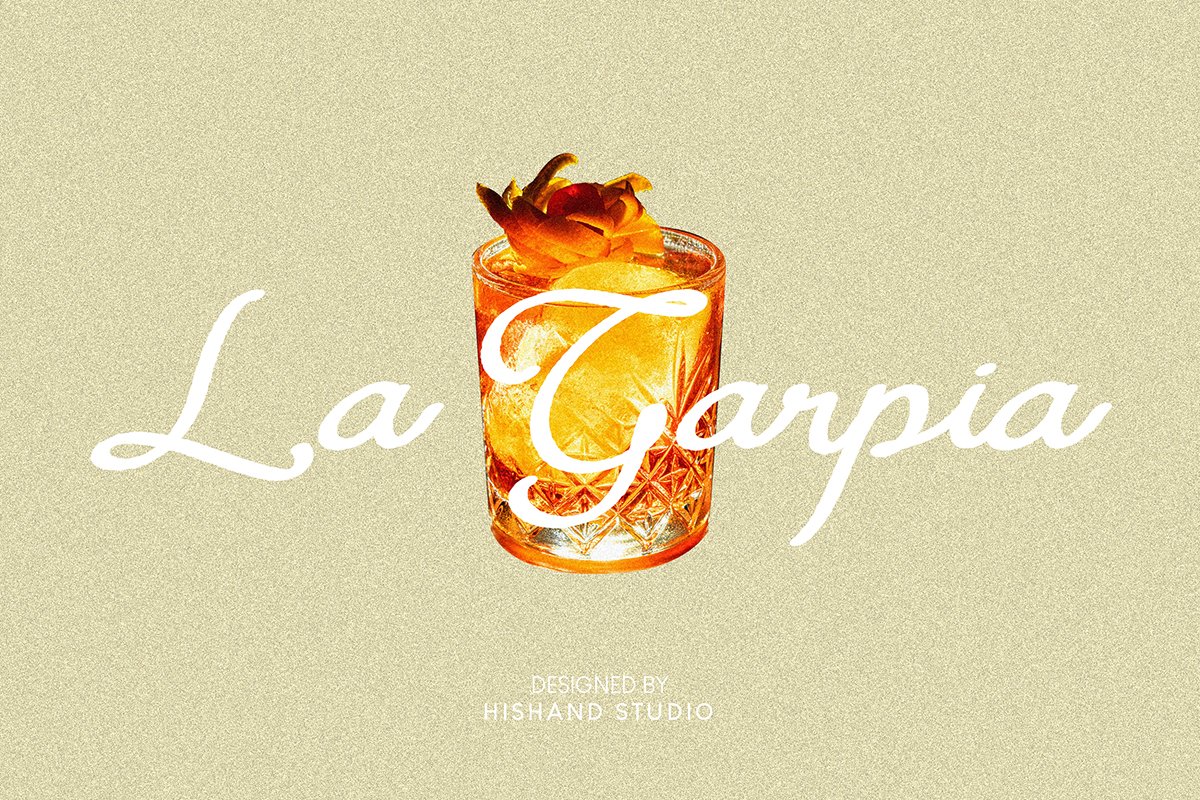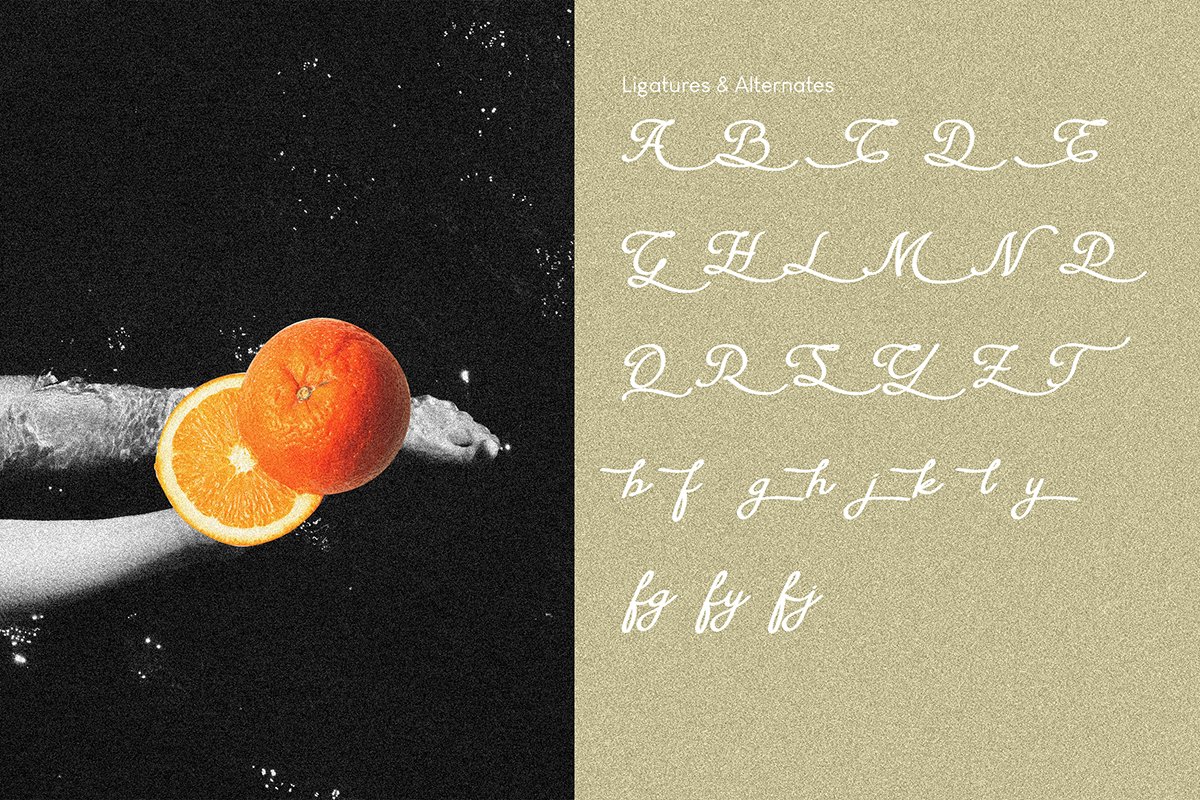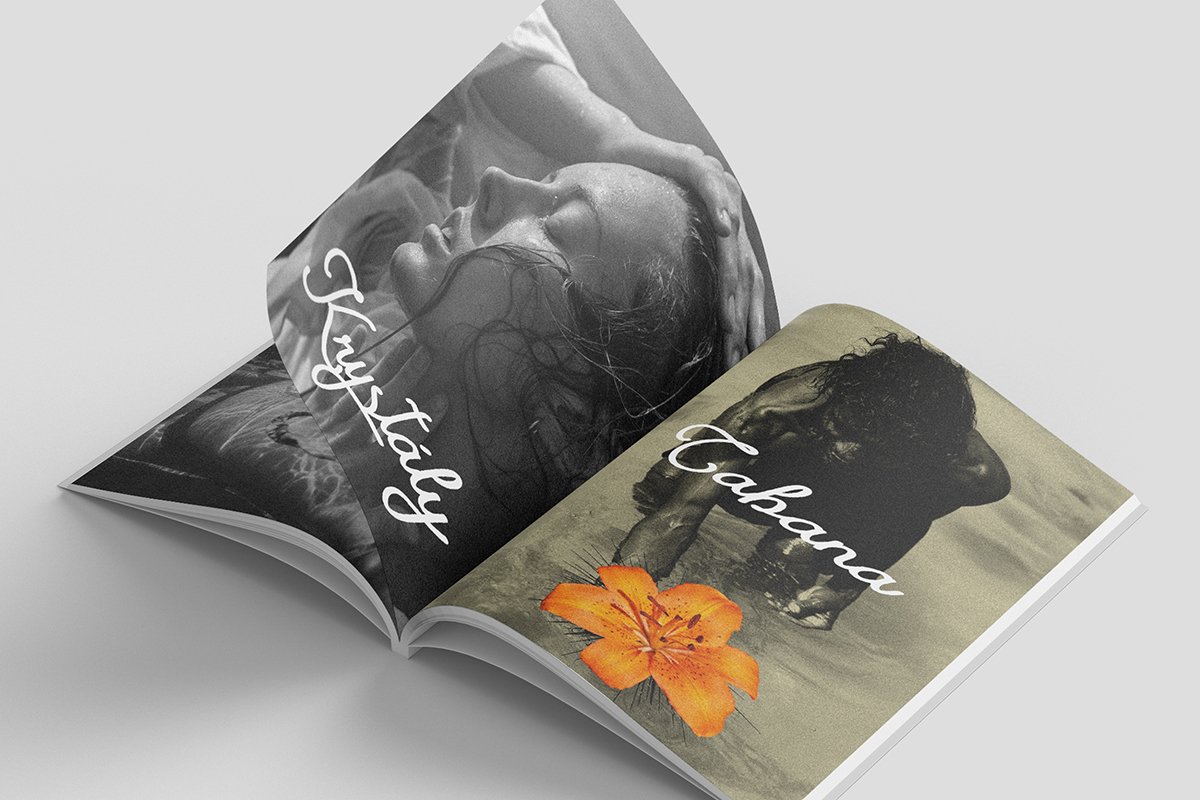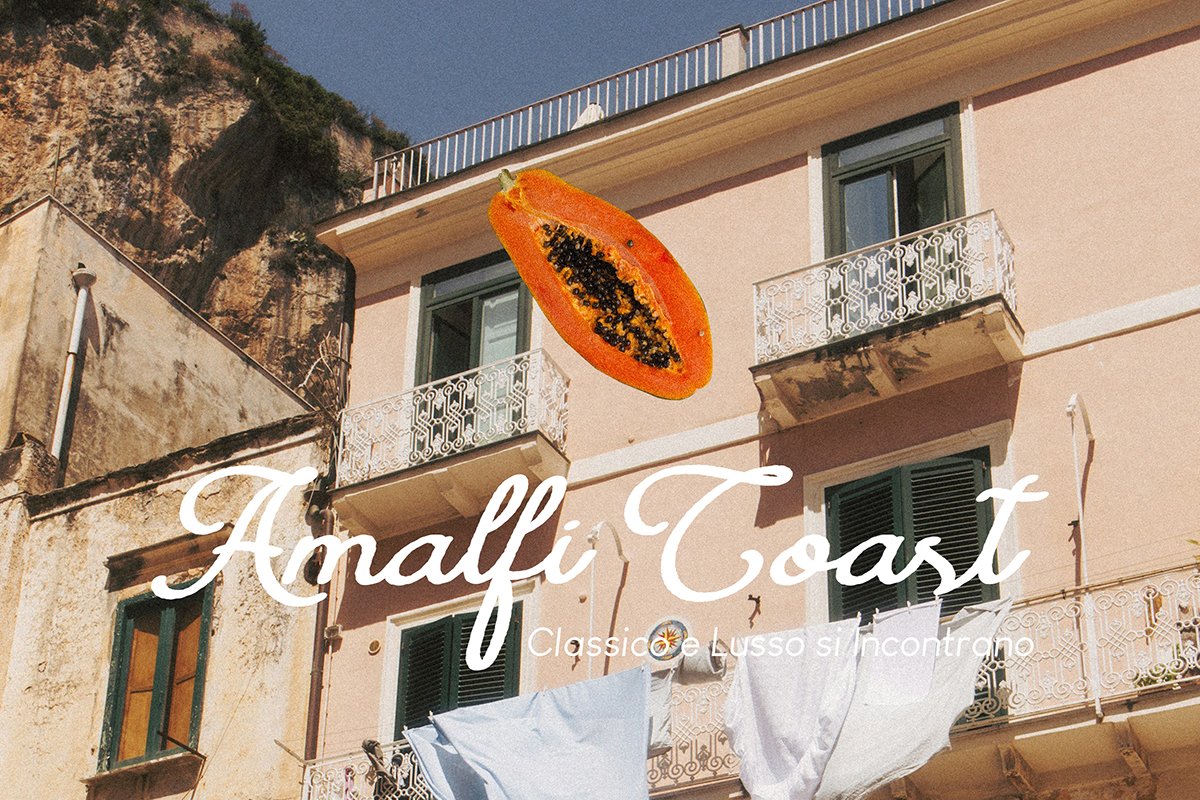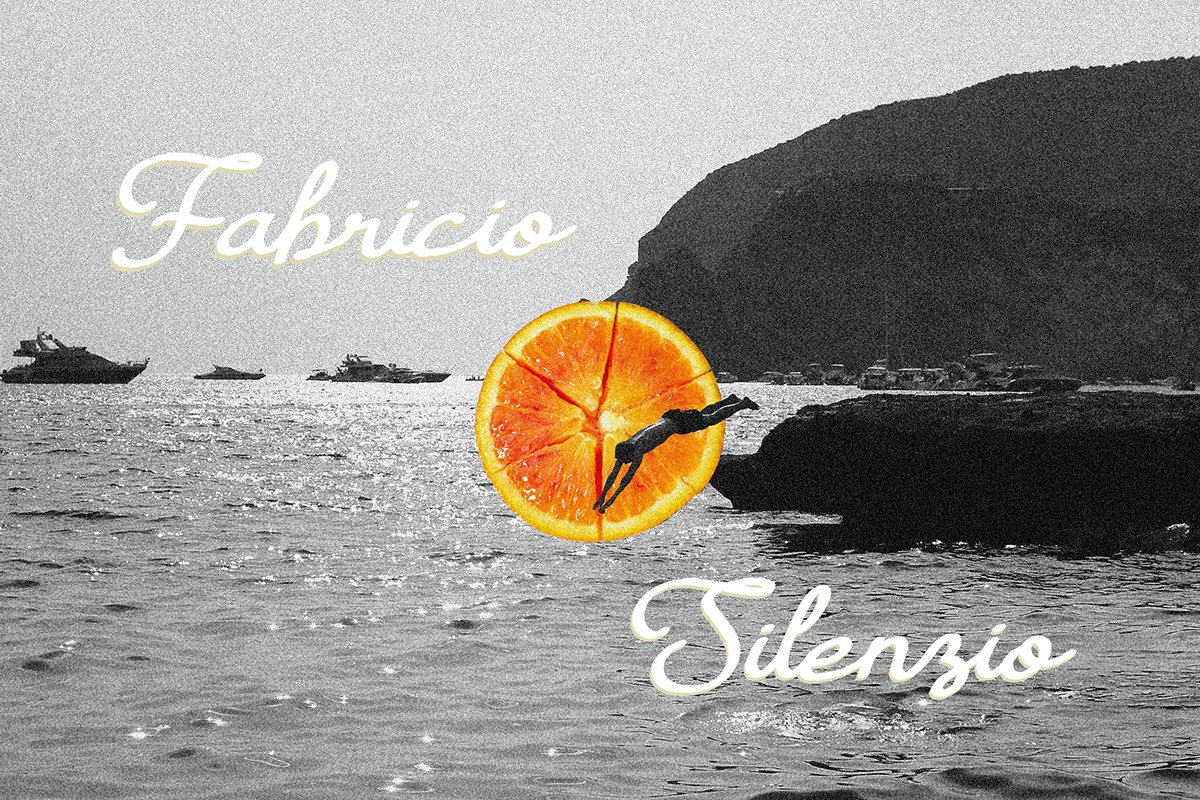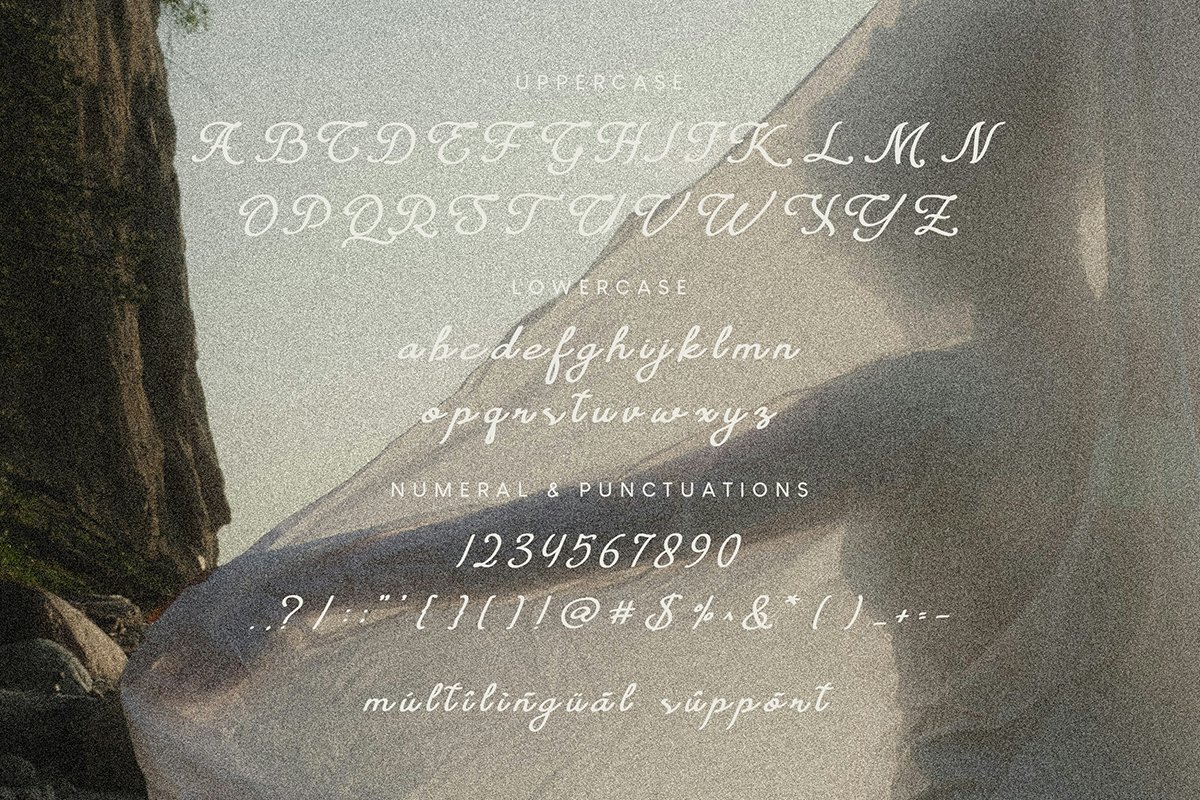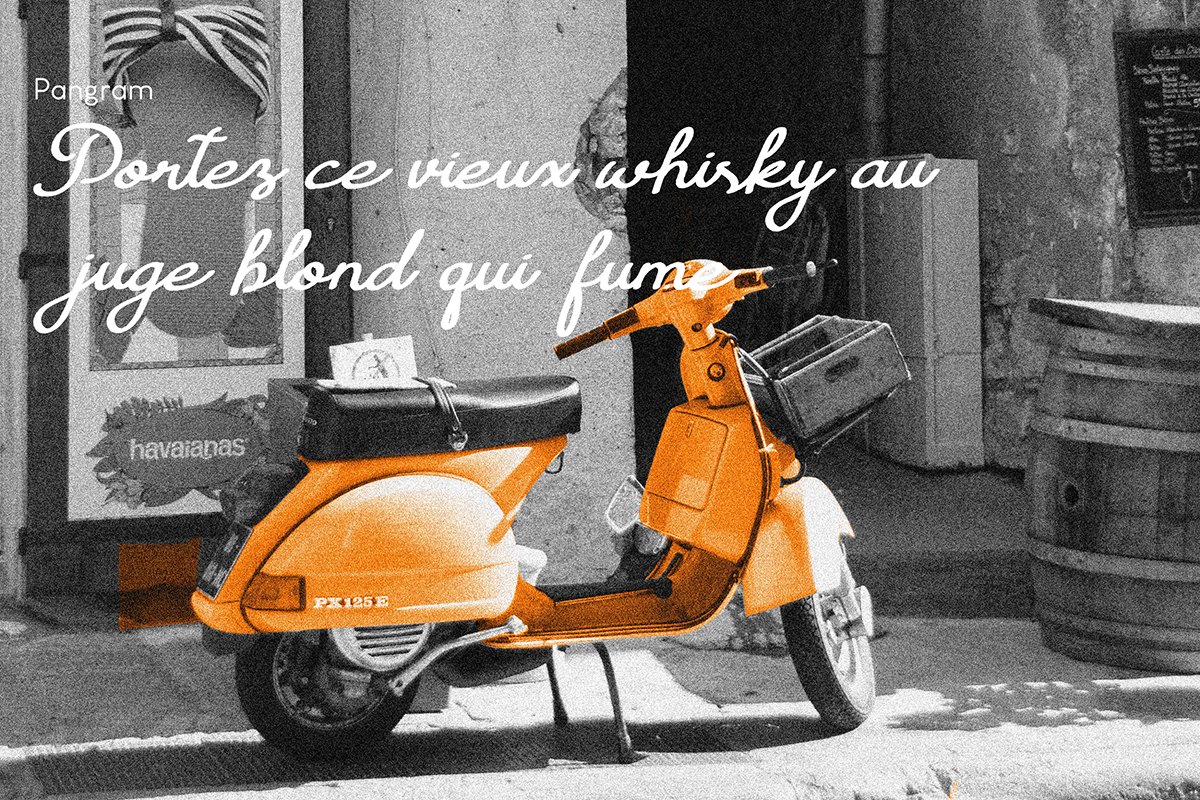
La Garpia Aesthetic Script Font is a handwritten script font that brings a clean, natural flow to every design. Crafted with a sense of balance and subtle rhythm, it carries the charm of organic handwriting while maintaining a professional and polished appearance. Its smooth curves and gentle strokes create an elegant yet relaxed look, making it a versatile choice for both modern and classic design themes.